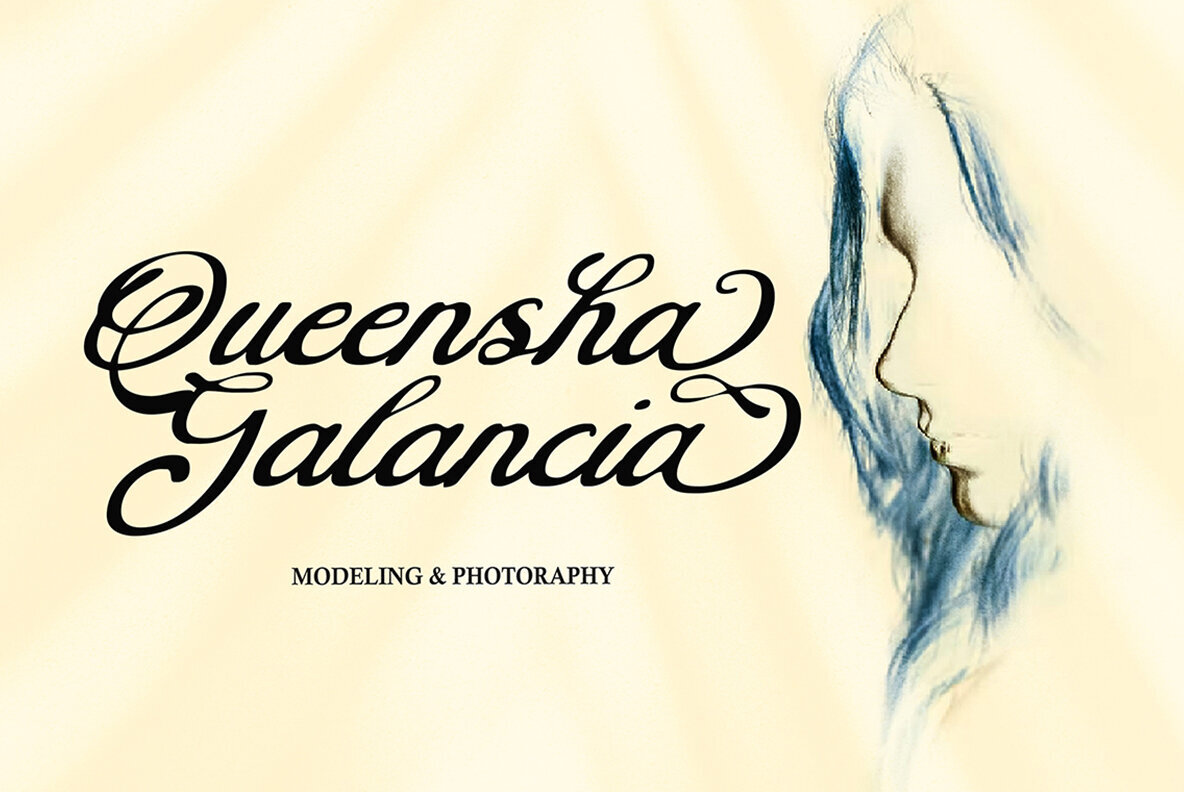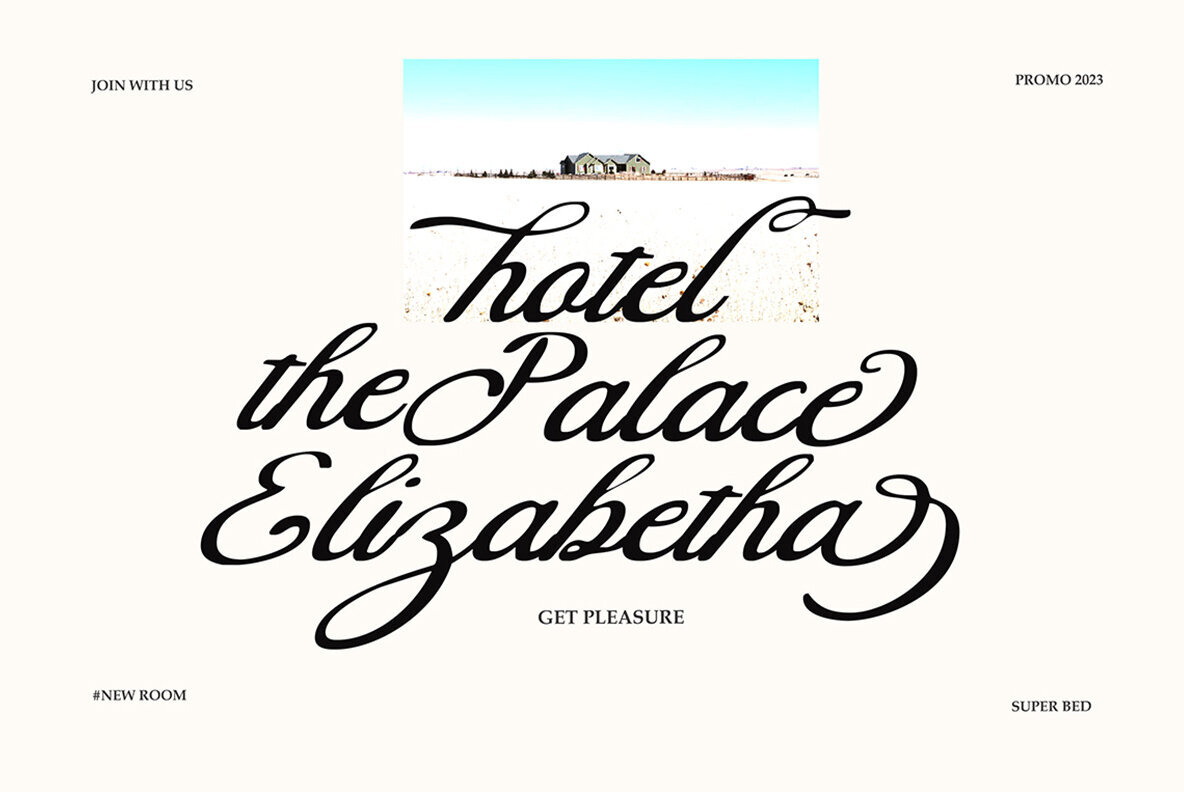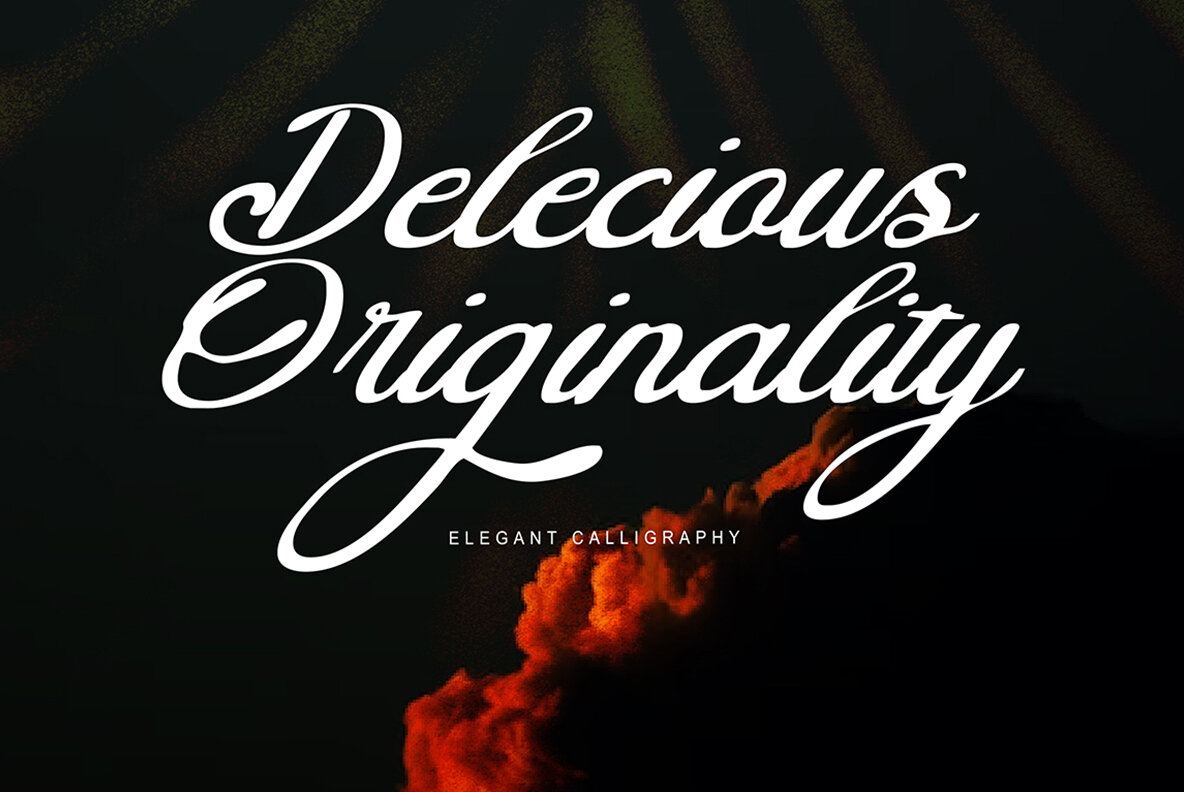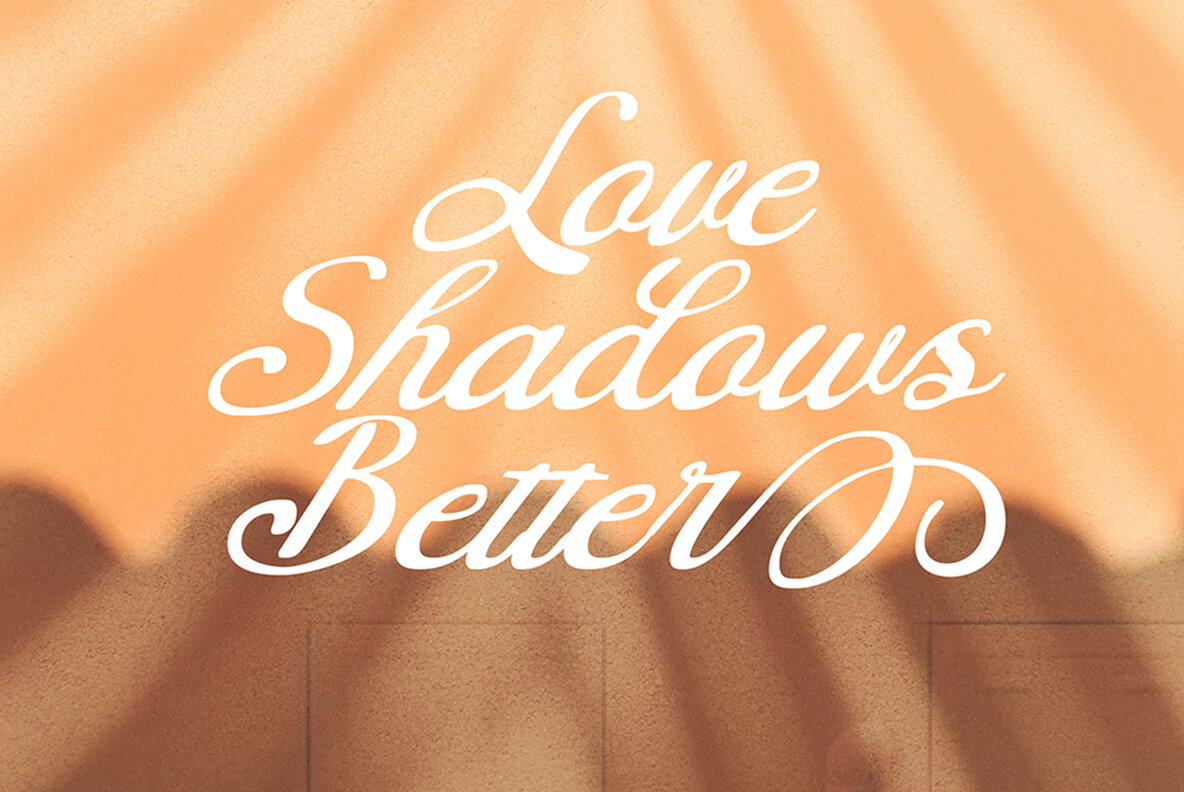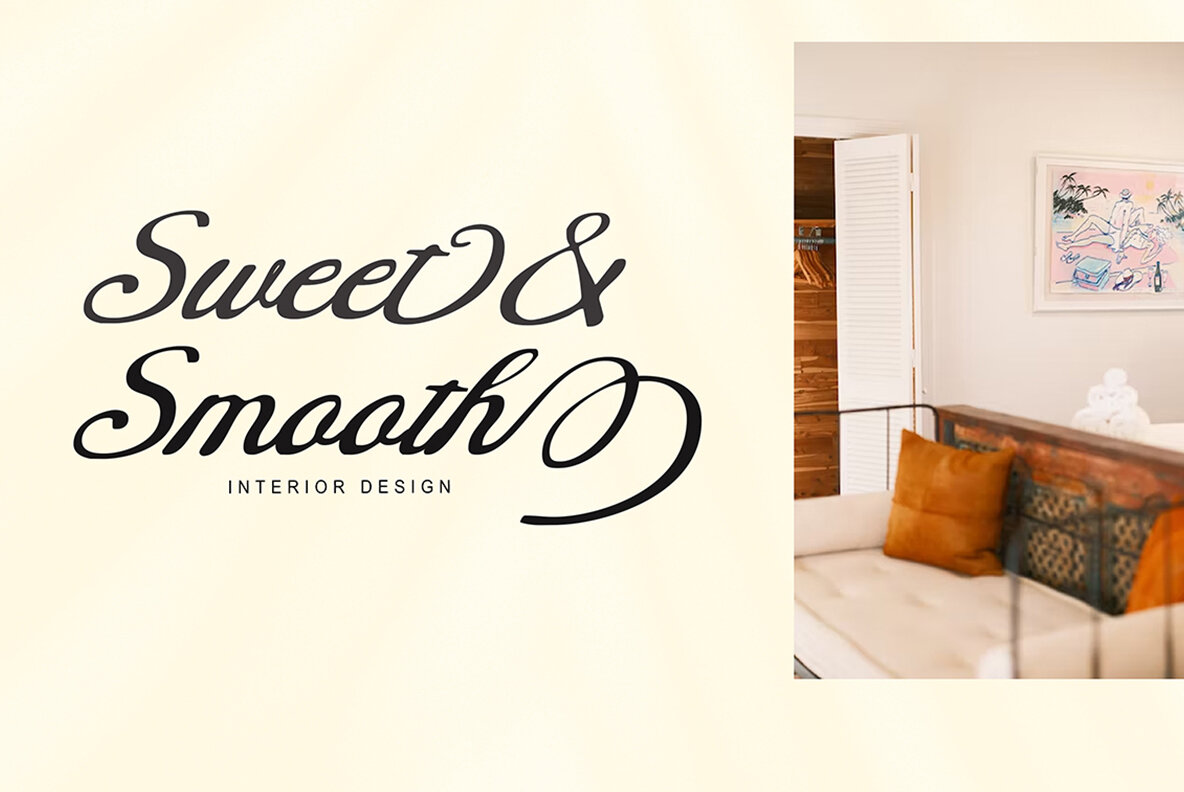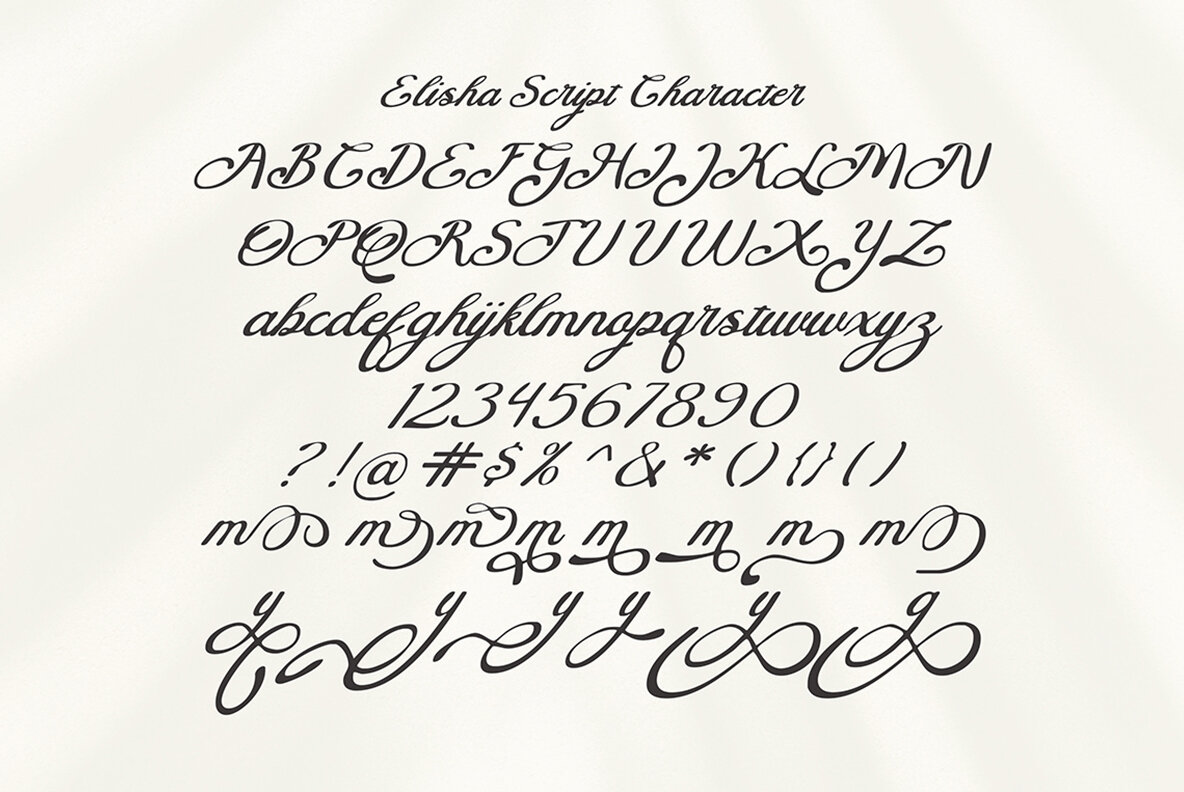
Elisha Font
Elisha Script
This elegant script font features flowing, cursive letterforms with intricate swirls and flourishes. Perfect for invitations, wedding announcements, romantic designs, and artistic branding projects, this font adds a stylish and sophisticated touch to any project.